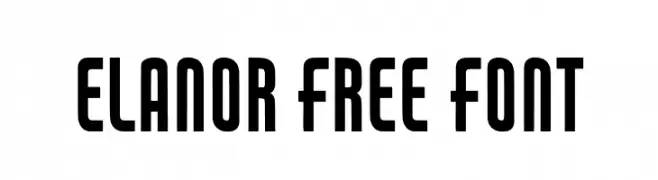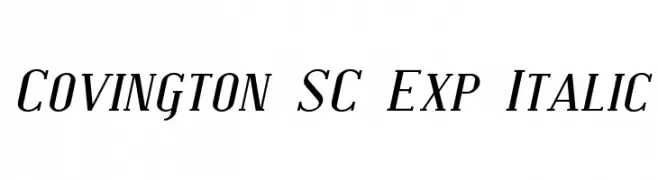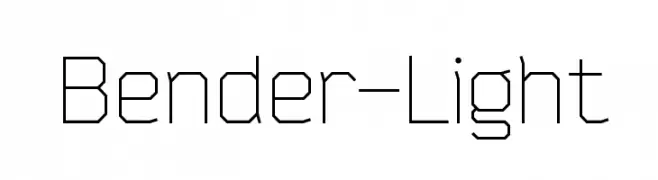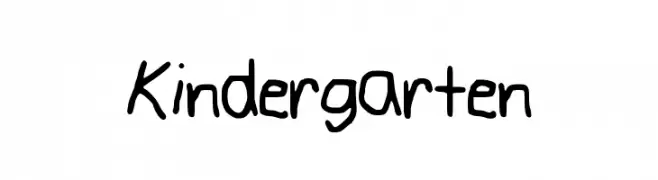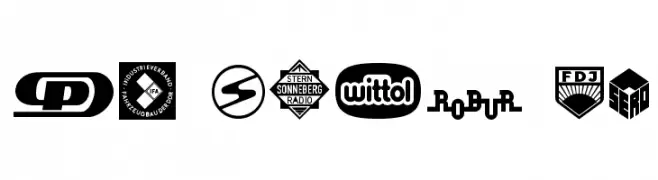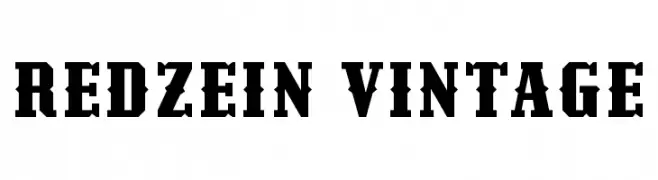
A bold, modern, and condensed sans-serif font with a geometric structure.
A classic, elegant italic serif font with pronounced serifs and graceful flow.
A bold, geometric font with a futuristic and digital design.
A geometric, modern font with clean lines and a futuristic style.
A playful, childlike handwritten font with irregular strokes and a whimsical style.
A playful handwritten font with a casual and friendly style.
Retro geometric logotypes and emblems with bold, high-contrast lines.
Bold, uppercase Roman numerals with a classic and authoritative style.
A bold, vintage-style font with strong serifs and a decorative flair.